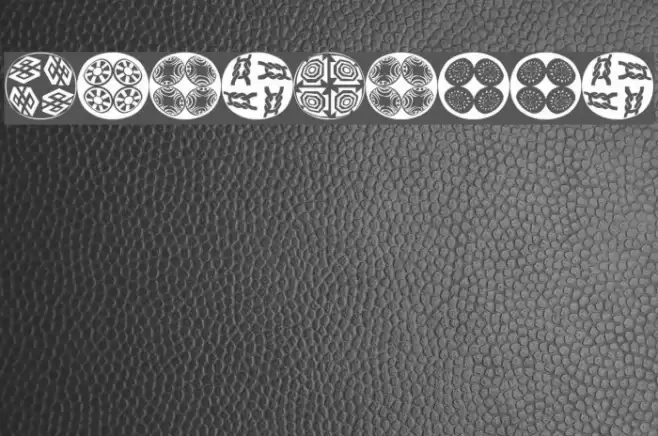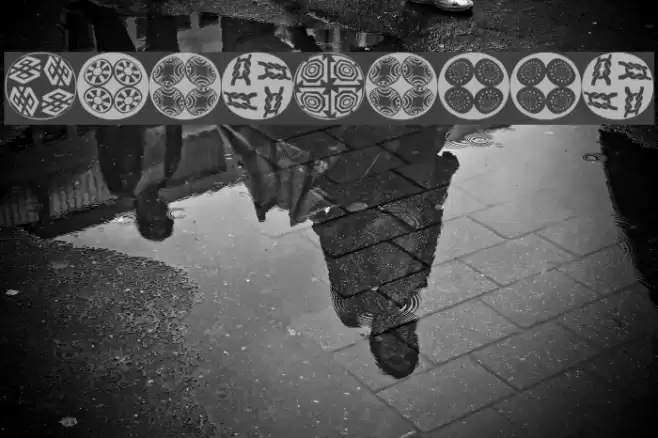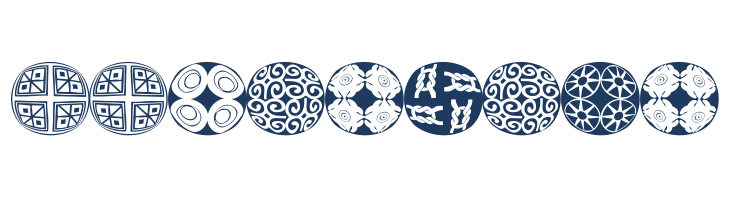
XmasBalls Font
XmasBalls Description
A decorative display font featuring circular glyphs filled with intricate, high-contrast black and white patterns, each character resembling a unique ornamental ball or bauble. The style is playful and festive, with each letter and symbol rendered as a distinct geometric or abstract motif within a circle.
Ornamental, patterned circular display font with festive, decorative motifs from Uncategorized fonts.
- Proposed Projects: Holiday cards, festive invitations, seasonal posters, event branding, decorative headlines.
- Overall Style: Decorative, Festive, Playful
- Use Case: Headlines, Logos, Posters, Decorative elements